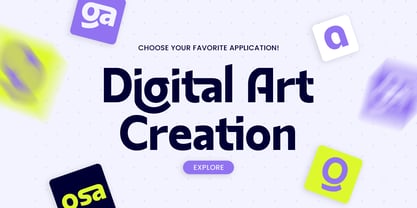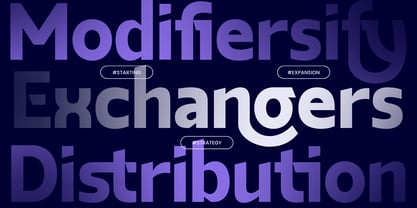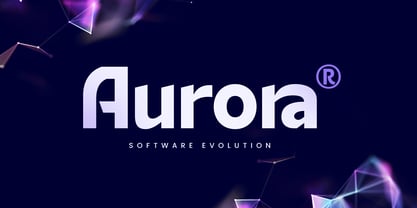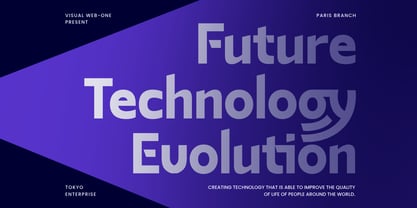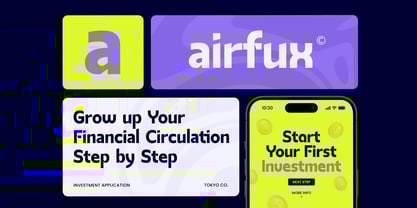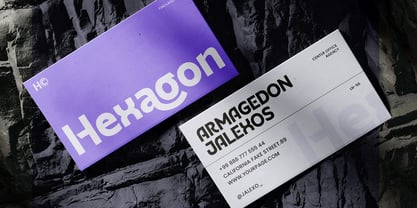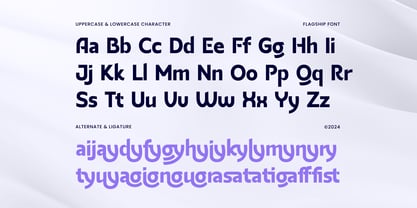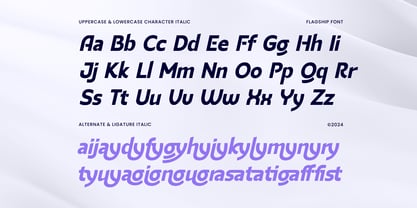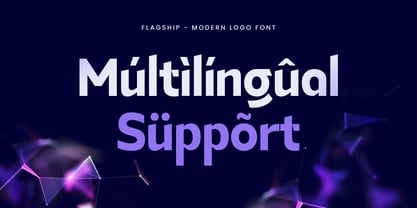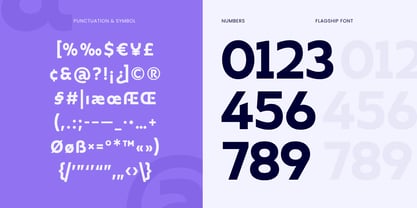
Flagship
The Flagship Font Family was designed by Zamroni Hamzah and published by Sensatype Studio. Flagship contains 2 styles and family package options. More about this family
Flagship - Modern Logo Font
Flagship is a modern logo font crafted for sleek and clean designs. With its minimalist approach and bold lines, this font is ideal for creating professional and standout brand identities. Flagship’s simplicity makes it highly versatile, allowing it to seamlessly fit into various projects, from logos to corporate branding, ensuring your visuals remain sharp and eye-catching.
Designed with modern aesthetics in mind, Flagship is perfect for businesses and brands looking for a clean, contemporary look. Its geometric structure and smooth curves provide a professional yet approachable feel, making it suitable for a wide range of industries. Whether you're crafting a new logo, developing a visual identity, or creating sleek branding assets, Flagship’s modern design will elevate your project to the next level. Its balanced shapes and consistent strokes ensure clarity and impact in any medium.
Flagship Modern Logo Font Features:
• Clean and bold modern characters for logos
• Unique Ligature Ready to make Standout
• Punctuation, Number, and Symbol
• Uppercase and Lowercase
• OpenType Features
Multilingual Characters available for:
Afrikaans, Albanian, Asu, Basque, Bemba, Bena, Breton, Chiga, Cornish, Dutch, English, Estonian, Filipino, Finnish, Friulian, Galician, German, Gusii, Indonesian, Irish, Italian, Kabuverdianu, Kalenjin, Kinyarwanda, Luo, Luxembourgish, Luyia, Machame, Makhuwa-Meetto, Makonde, Malagasy, Manx, Morisyen, North Ndebele, Nyankole, Oromo, Portuguese, Quechua, Romansh, Rombo, Rundi, Rwa, Samburu, Sango, Sangu, Scottish Gaelic, Sena, Shambala, Shona, Soga, Somali, Spanish, Swahili, Swedish, Swiss.